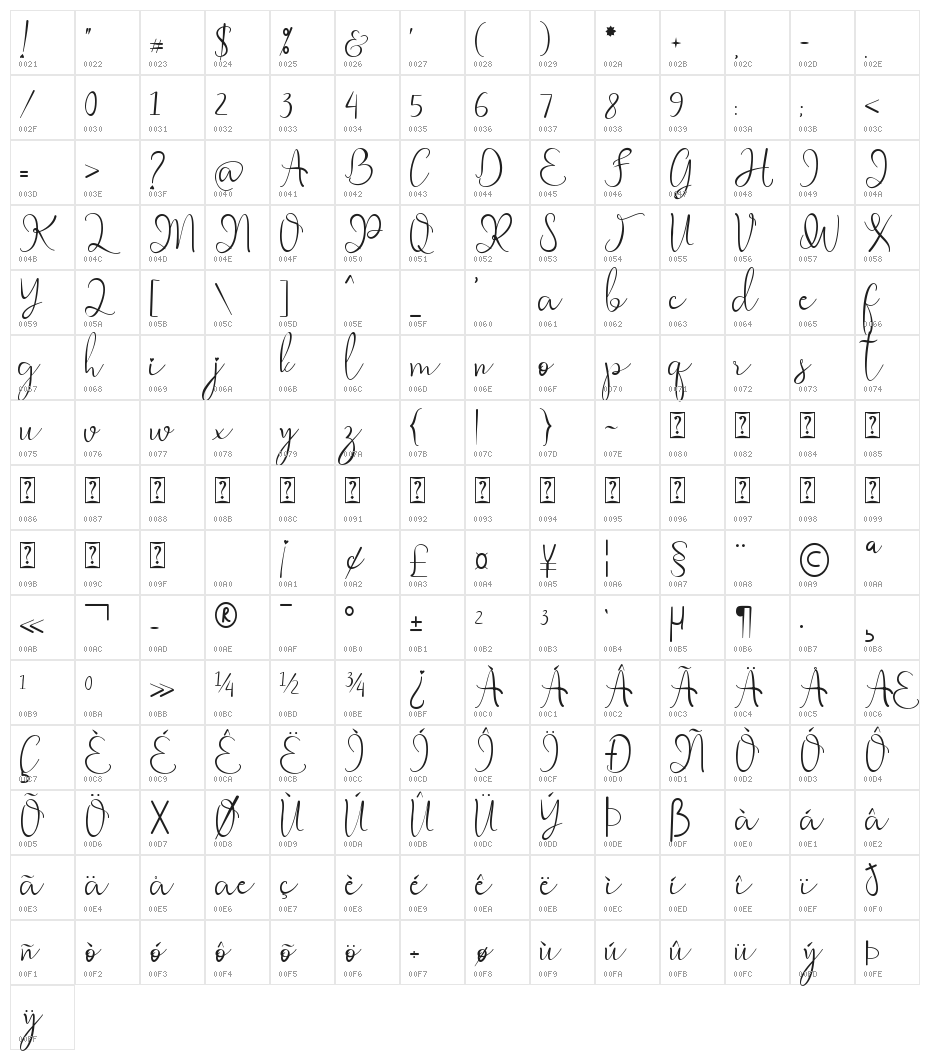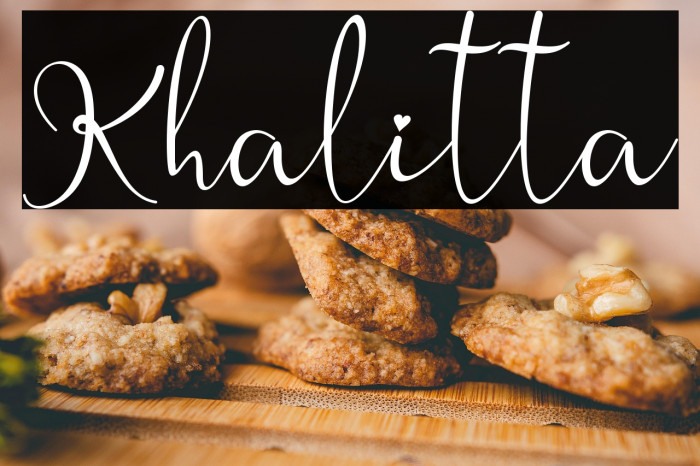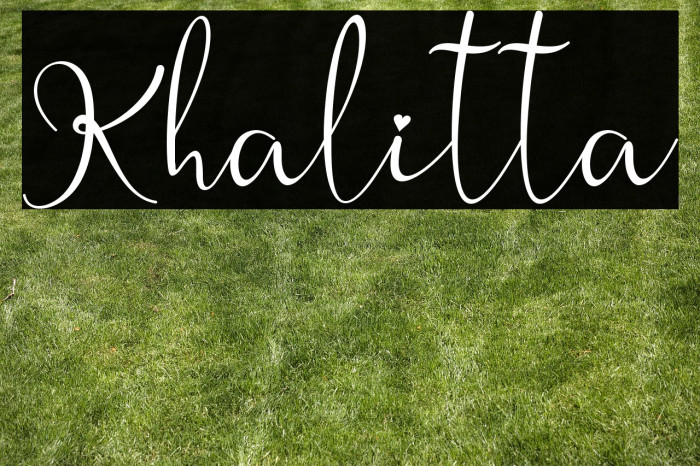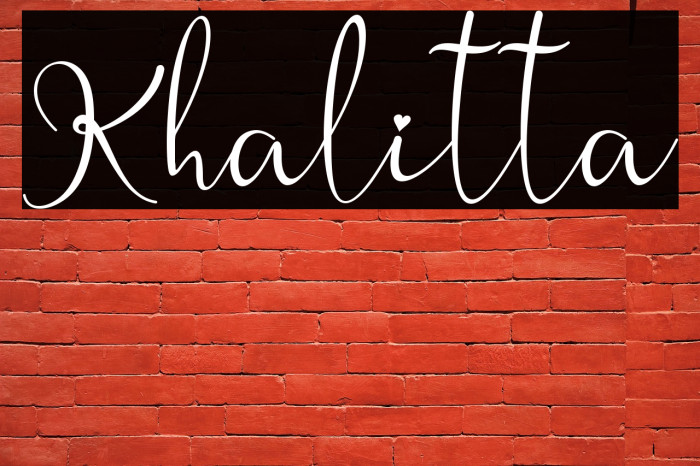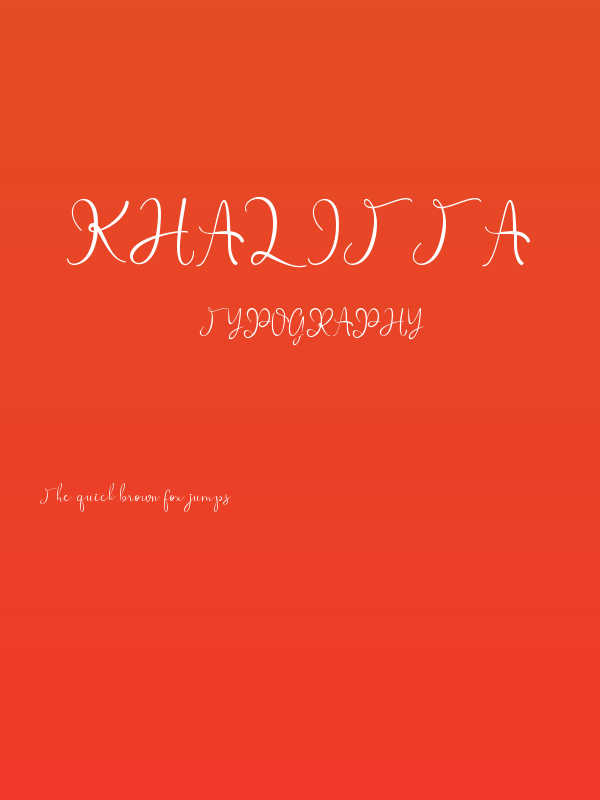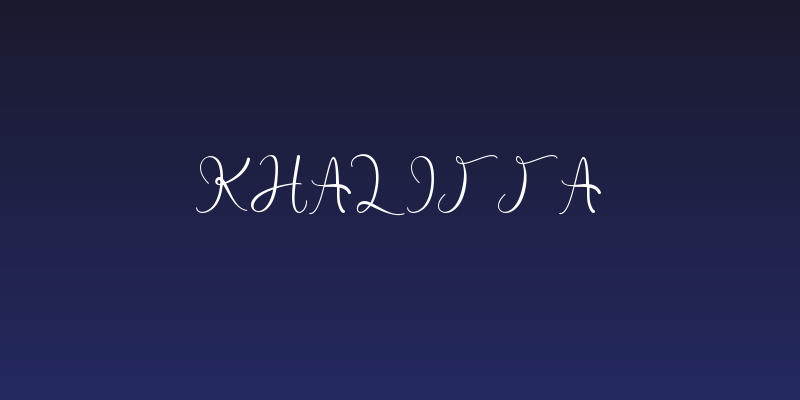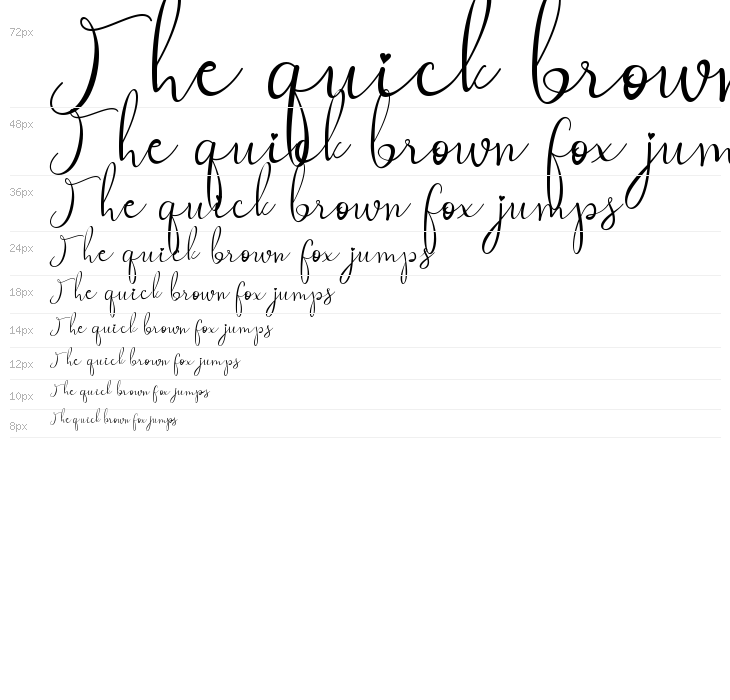
Khalitta Font
Khalitta Description
This font features a whimsical and elegant script style, characterized by its flowing, interconnected letters. The uppercase letters exhibit a graceful looped design, while the lowercase letters maintain a consistent fluidity, adding a touch of sophistication. The numerals are stylishly curved, complementing the overall aesthetic. Special characters are creatively integrated, enhancing the font's playful yet refined appearance. The font's artistic flair makes it suitable for projects that require a personal and artistic touch.